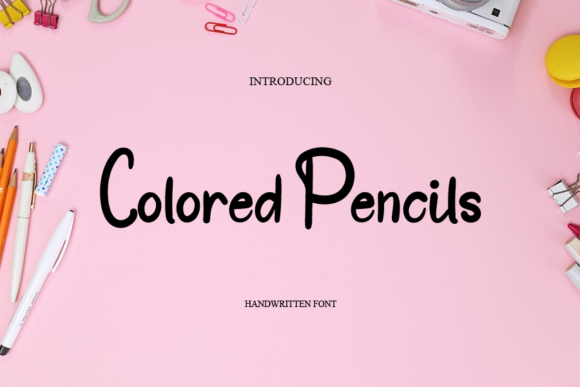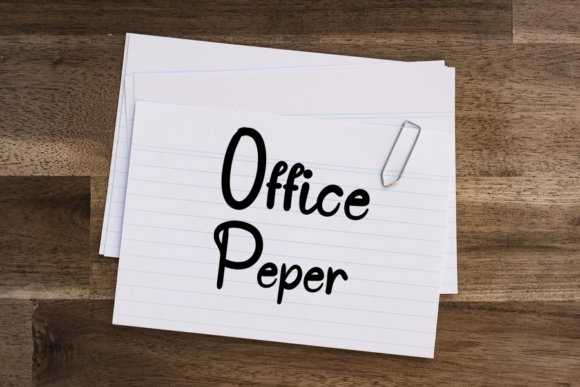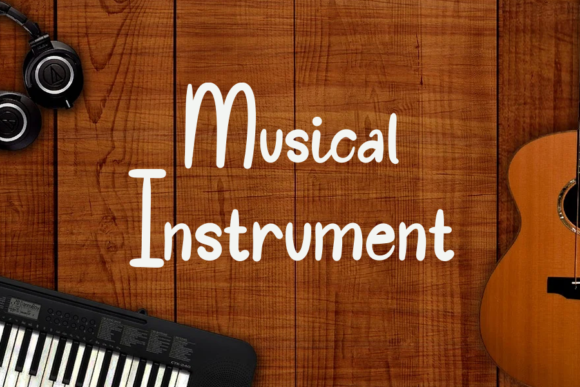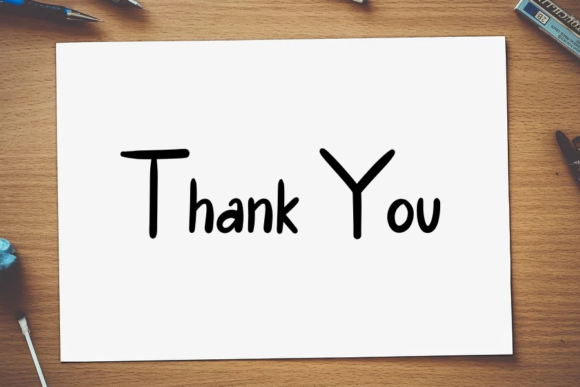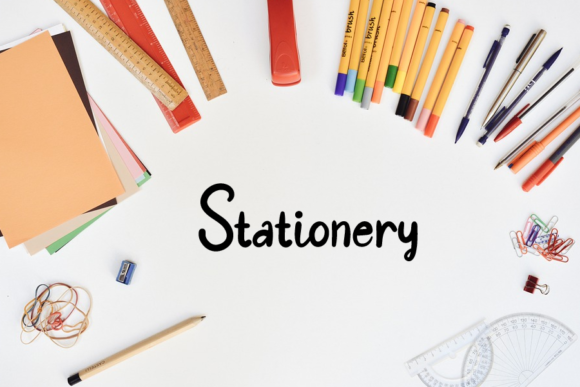
Colored Pencils Font
About Colored Pencils Font
Colored Pencils is a cute handwritten font that exudes a childlike playfulness, perfect for brightening up any kids’ and school projects. With its whimsical and fun style, this font adds a touch of joy and creativity to your designs.
The playful nature of Colored Pencils brings a sense of lightheartedness and imagination to your typographic compositions. Its hand-drawn appearance and irregular letterforms create a sense of spontaneity and creativity. Whether you’re working on educational materials, children’s books, posters, or any other kids’ and school projects, Colored Pencils font enhances the overall visual appeal with its cute and vibrant demeanor.
Colored Pencils font allows you to get creative and embrace the childlike spirit in your designs. Its handwritten style and charming irregularities give your projects a personalized and handmade touch. This font adds a sense of joy and playfulness, making your designs visually engaging and appealing to young audiences.
Incorporating Colored Pencils into your kids’ and school projects allows you to infuse them with a sense of fun and creativity. Its cute handwritten style brightens up your designs, making them visually appealing and memorable for children.
In summary, Colored Pencils is a cute handwritten font that adds a playful and childlike touch to your designs. Its whimsical and fun style enhances the joy and creativity in kids’ and school projects. Embrace the playfulness of Colored Pencils font and let it bring a burst of color and imagination to your designs, brightening up any project with its cute and vibrant presence.